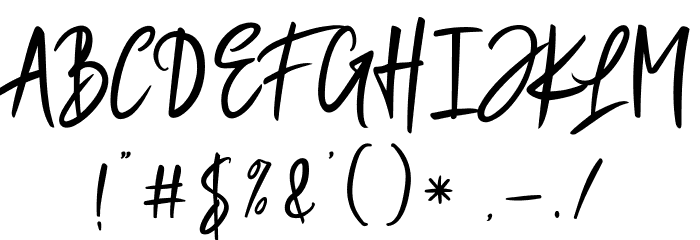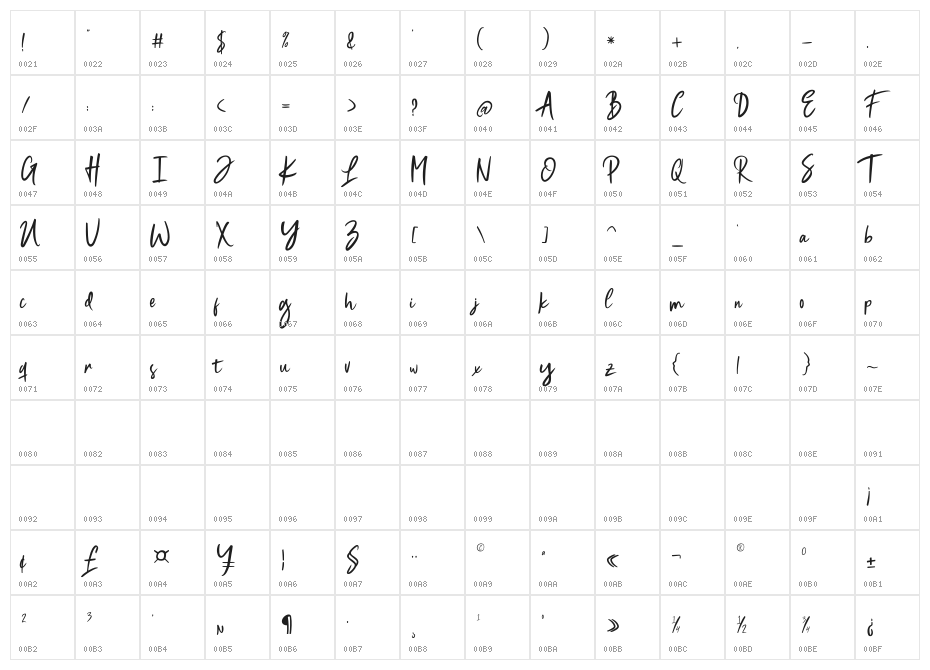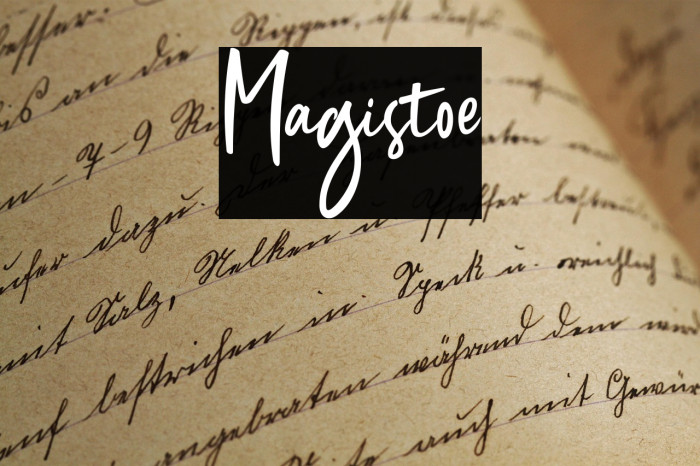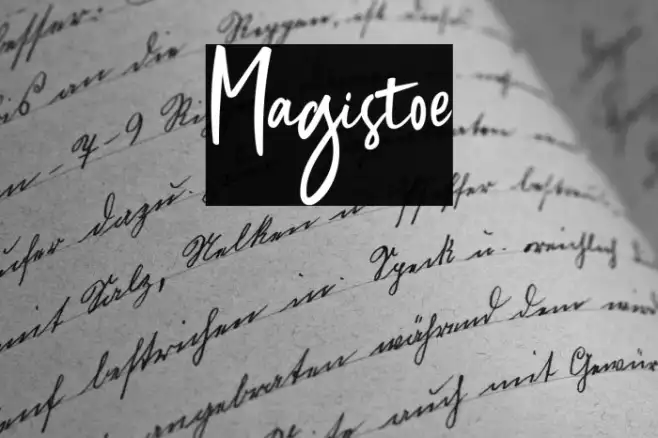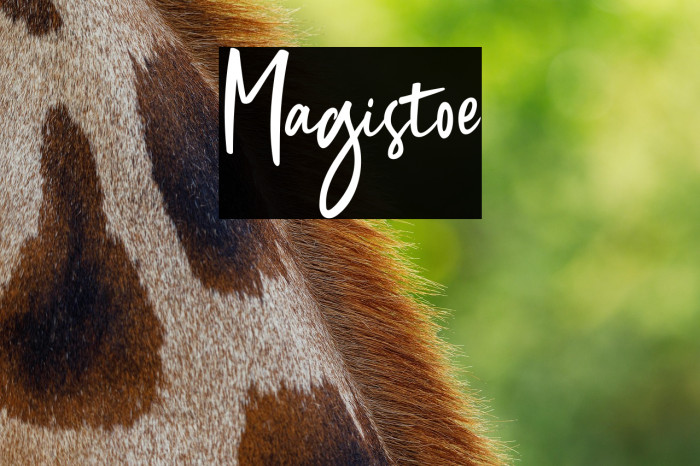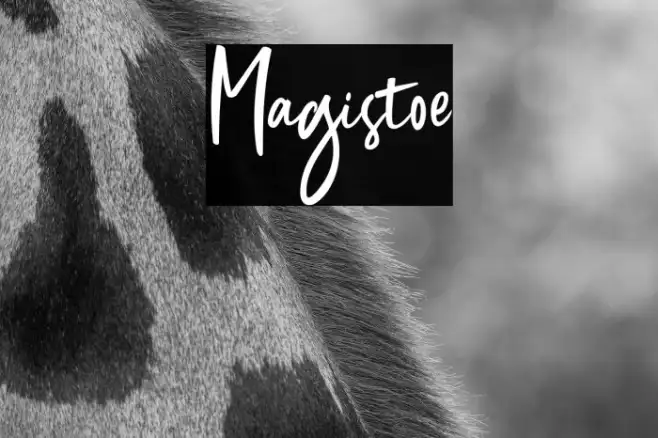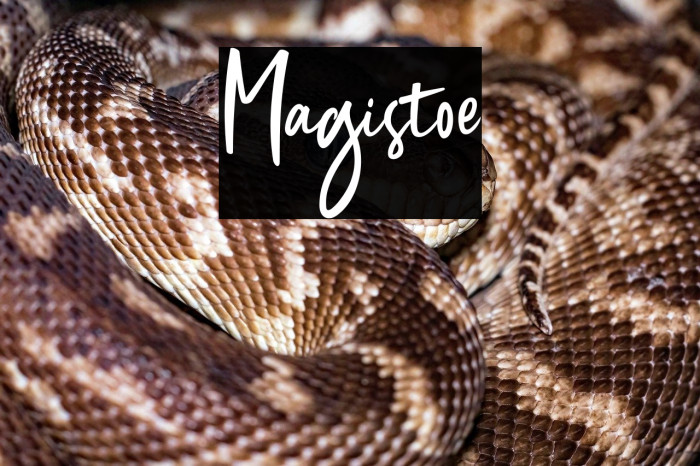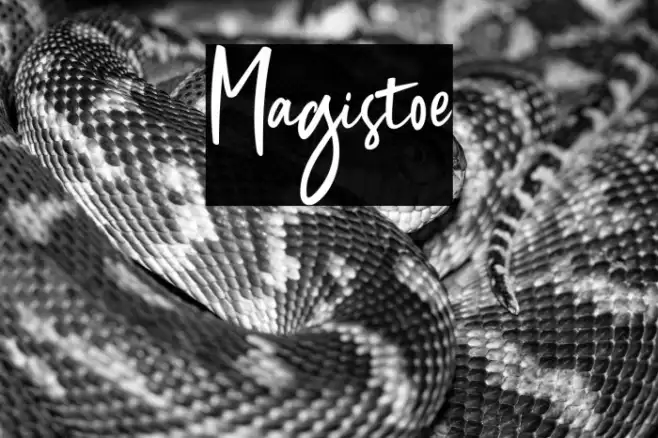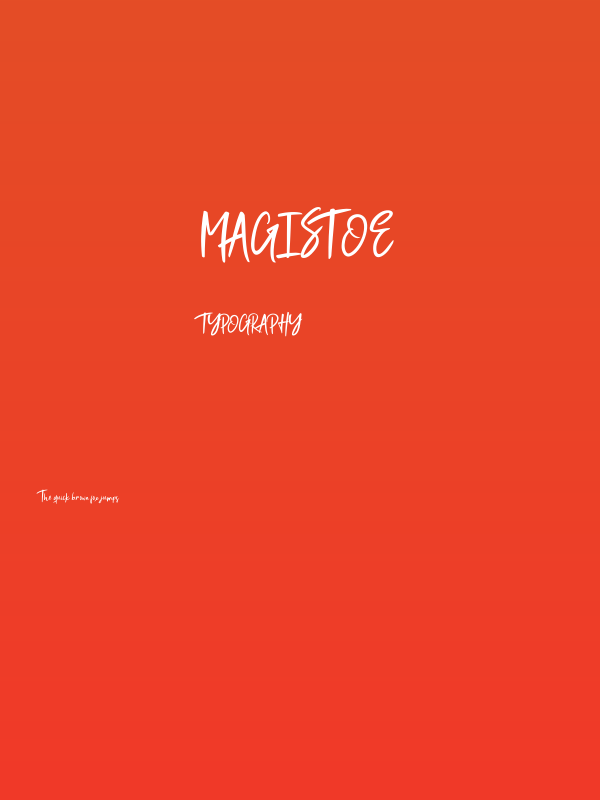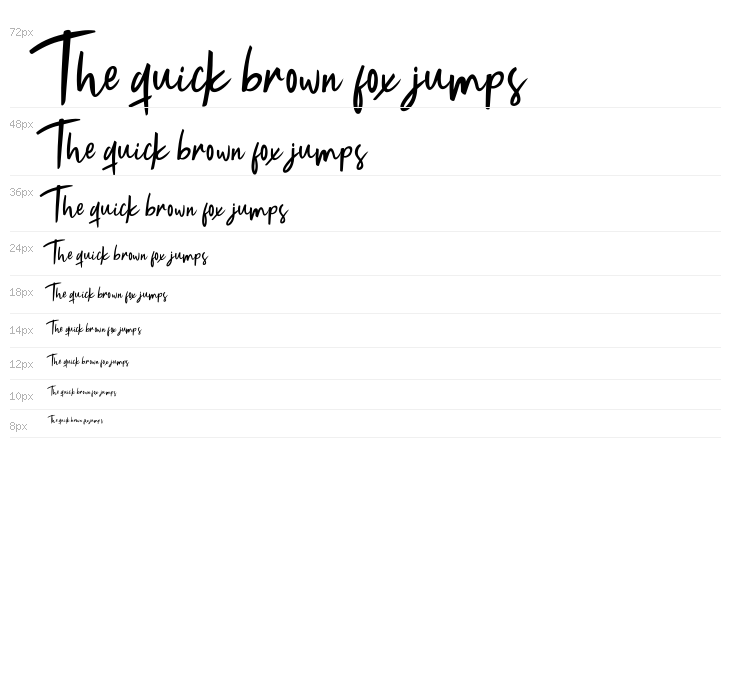
Magistoe Font
Magistoe Description
This font features a dynamic and expressive handwritten style, characterized by its flowing and cursive letterforms. The strokes are bold and confident, with a slight slant that adds to its energetic appearance. The uppercase letters are particularly striking, with exaggerated loops and curves that give the font a lively and playful feel. The lowercase letters maintain a consistent style, complementing the uppercase with their smooth and connected strokes. The numbers and special characters are designed to match the overall aesthetic, ensuring a cohesive look across all text. This font is perfect for projects that require a personal touch, such as invitations, greeting cards, or branding materials that aim to convey creativity and warmth.
| Proposed Projects | Ideal for invitations, greeting cards, branding materials, and creative projects. |